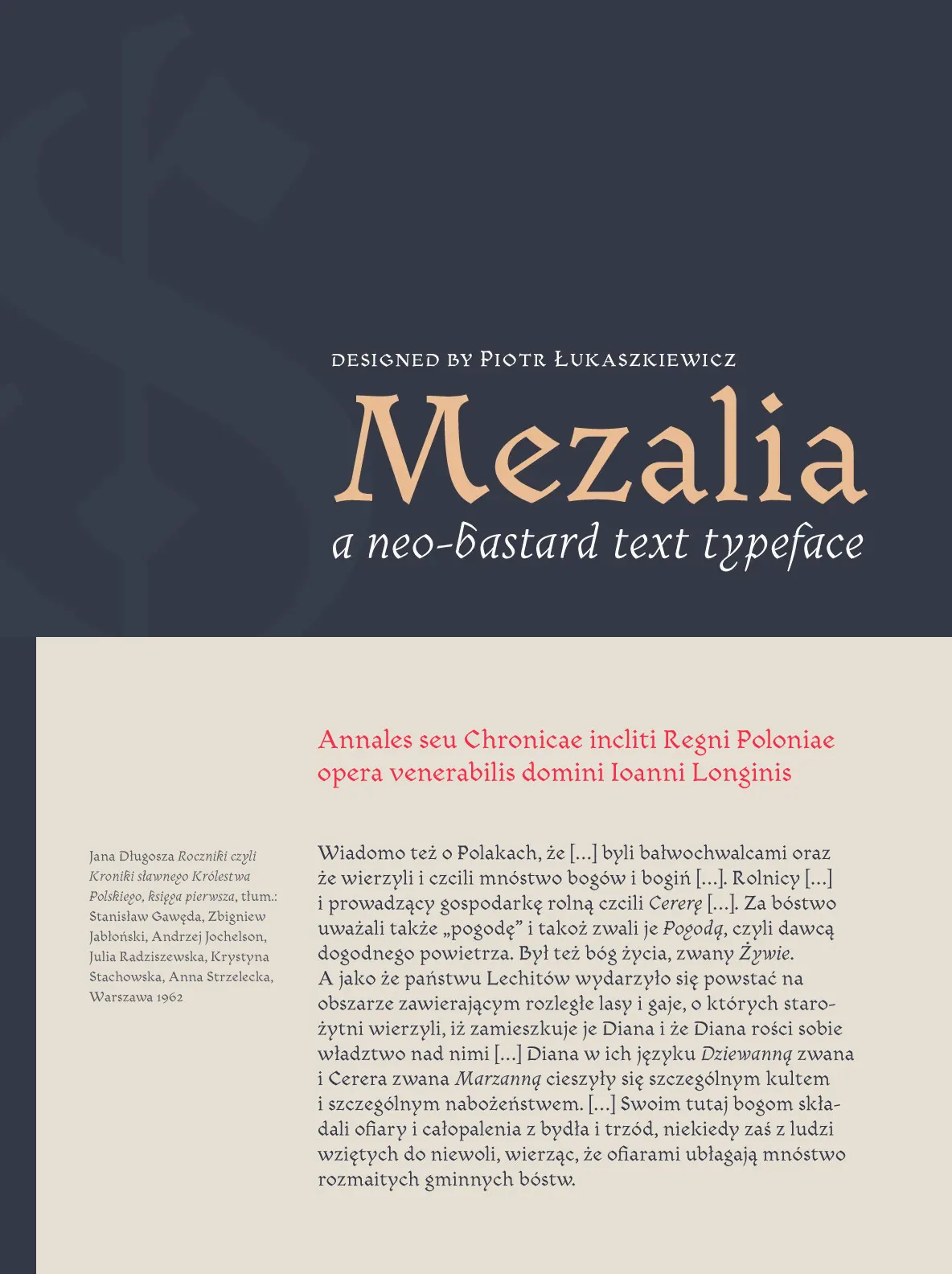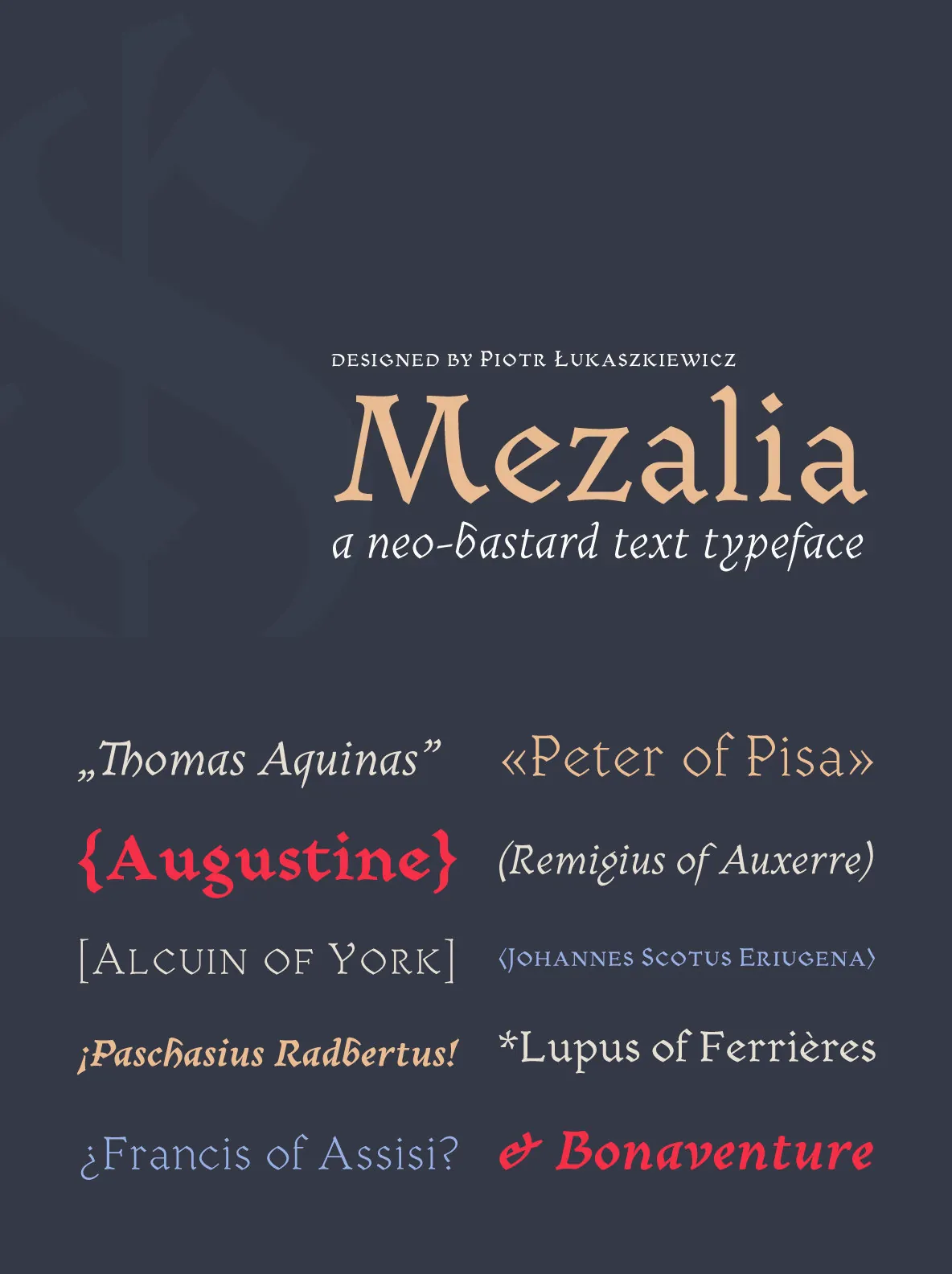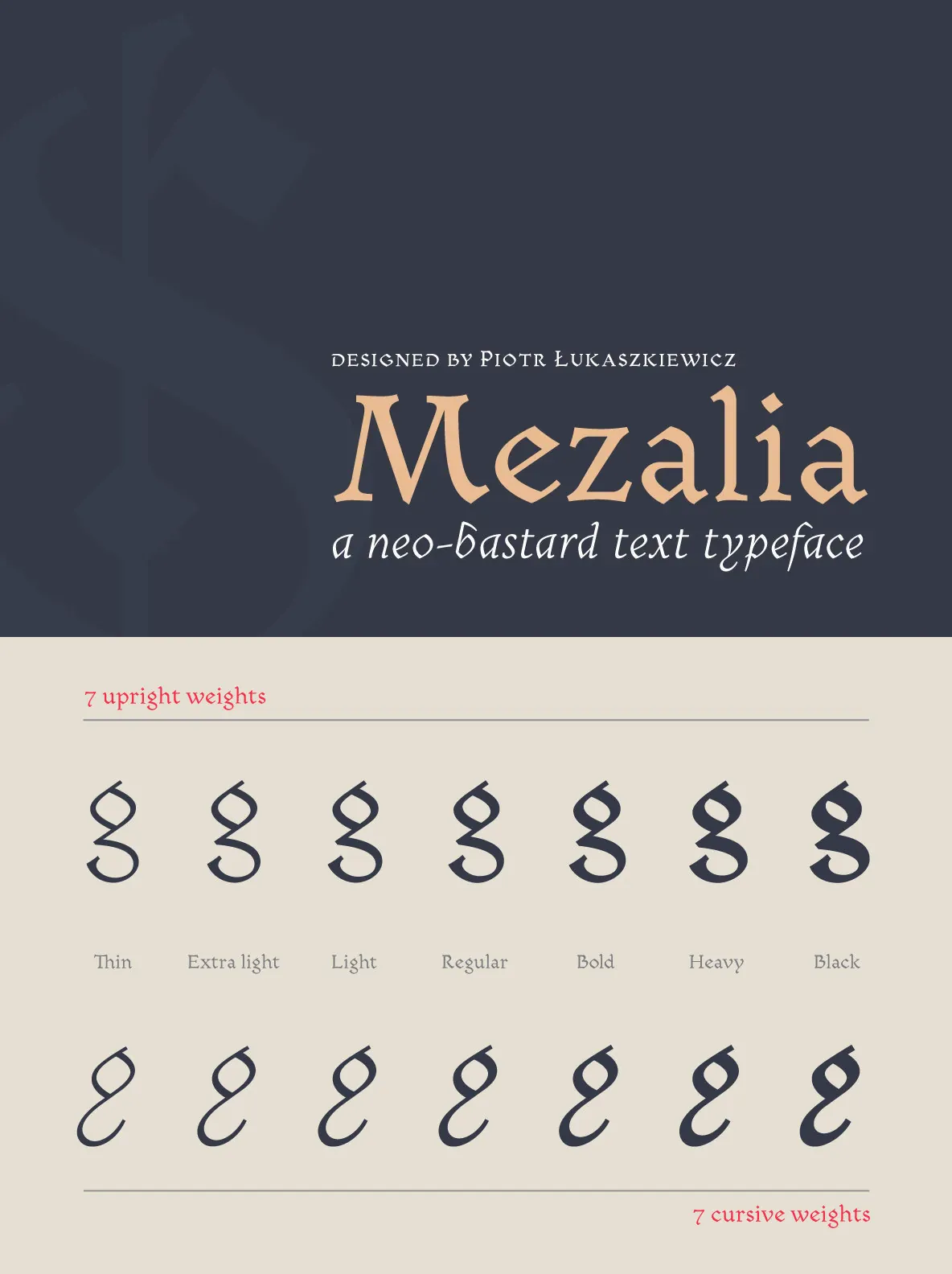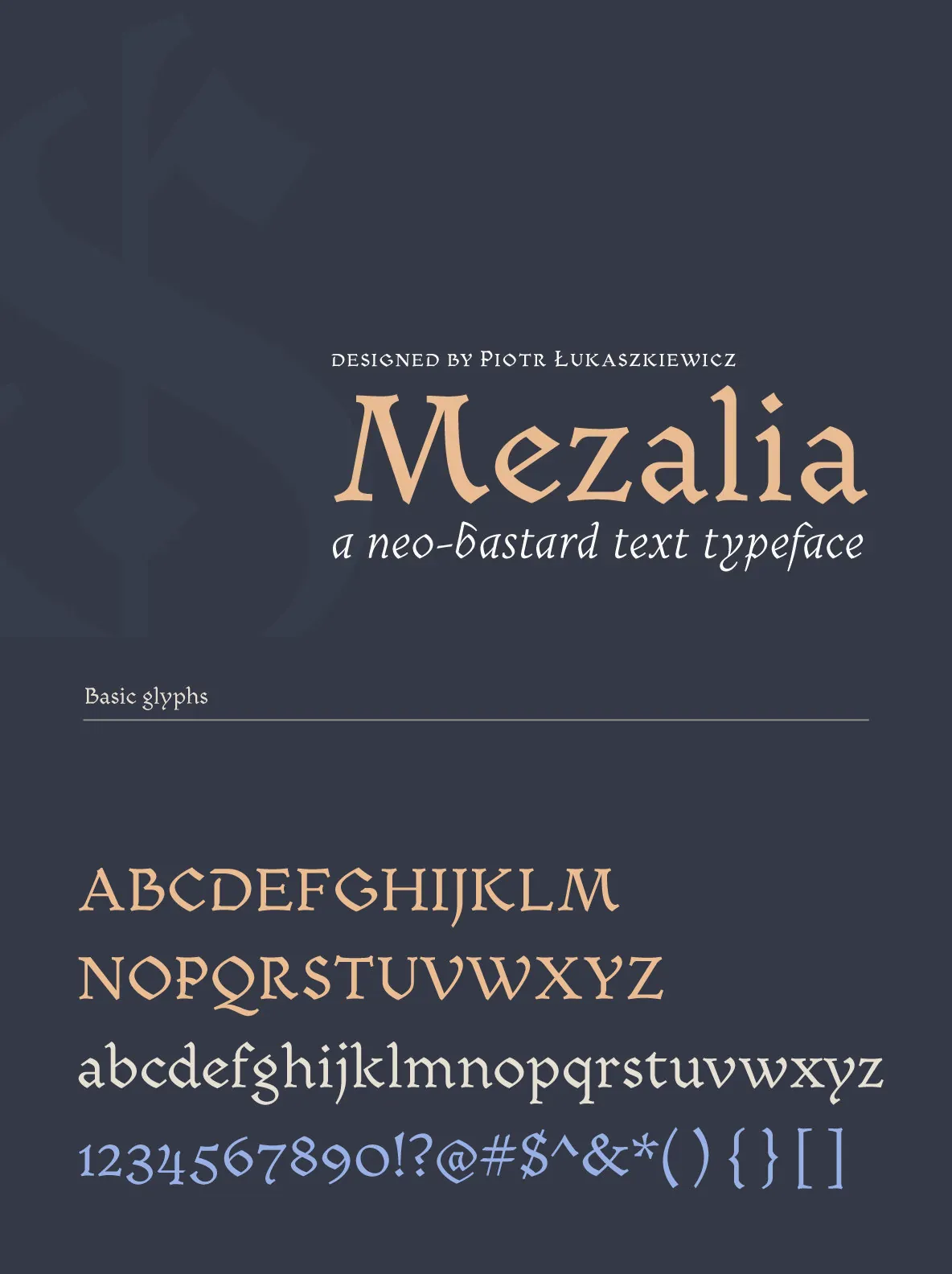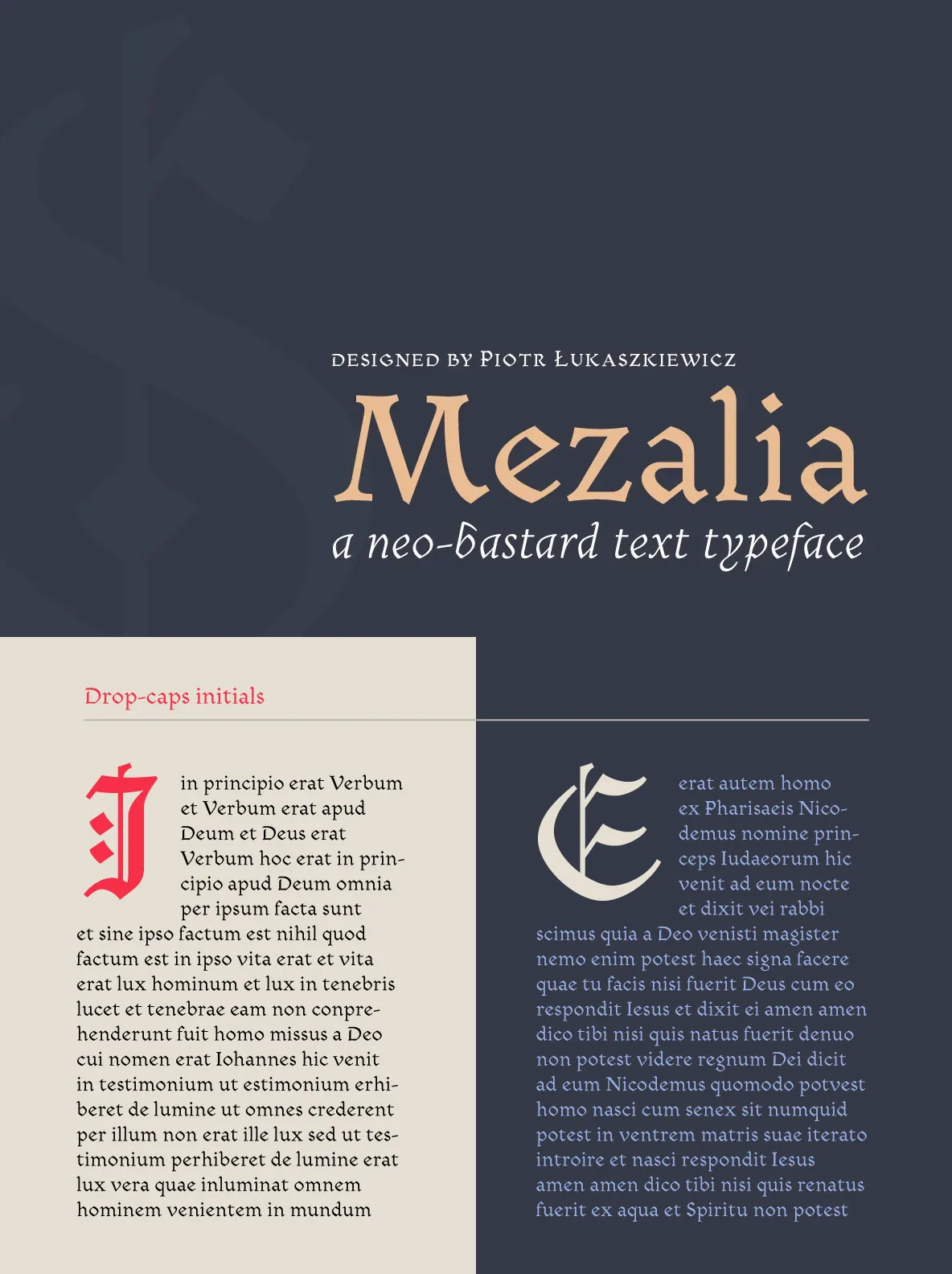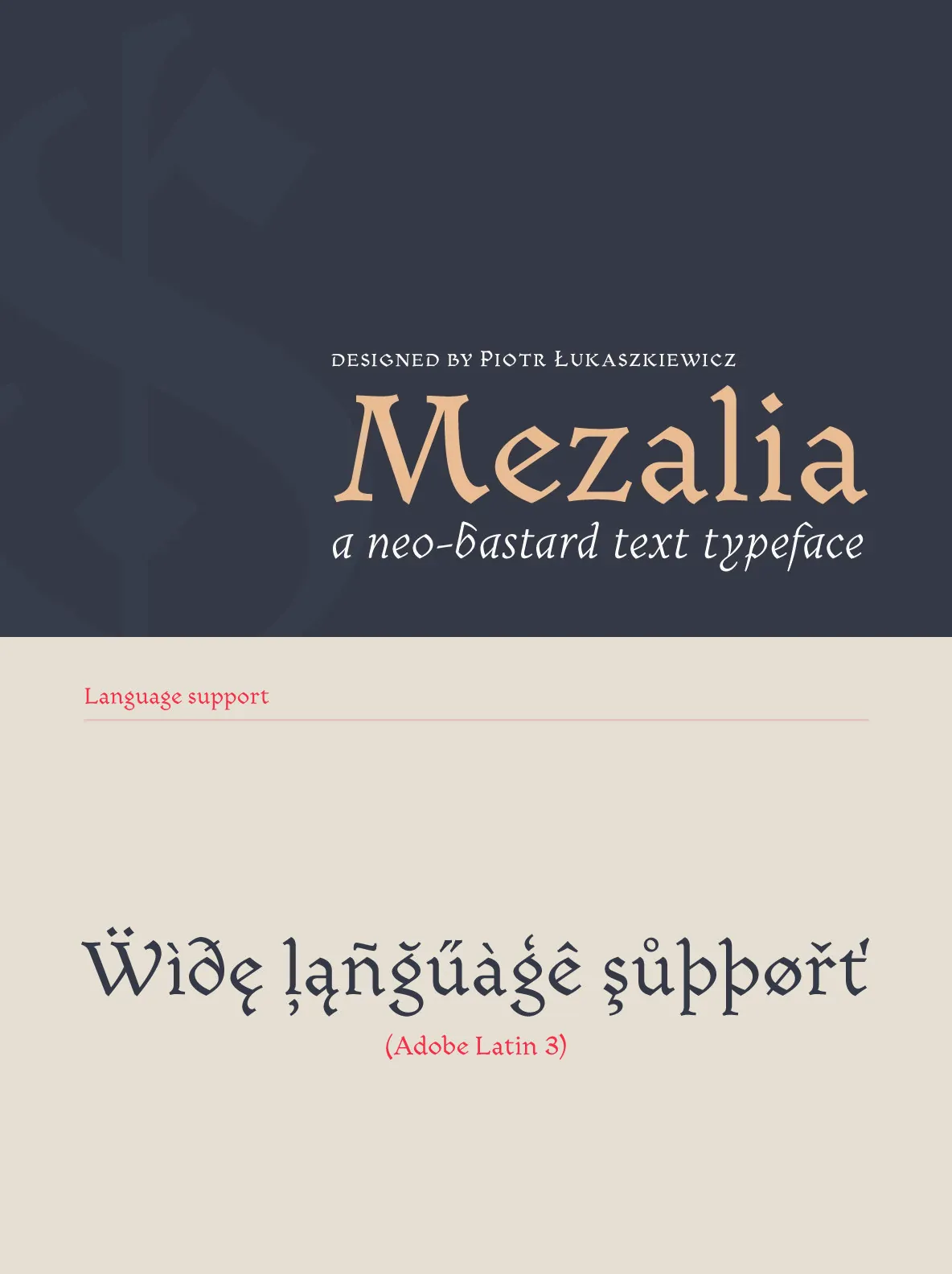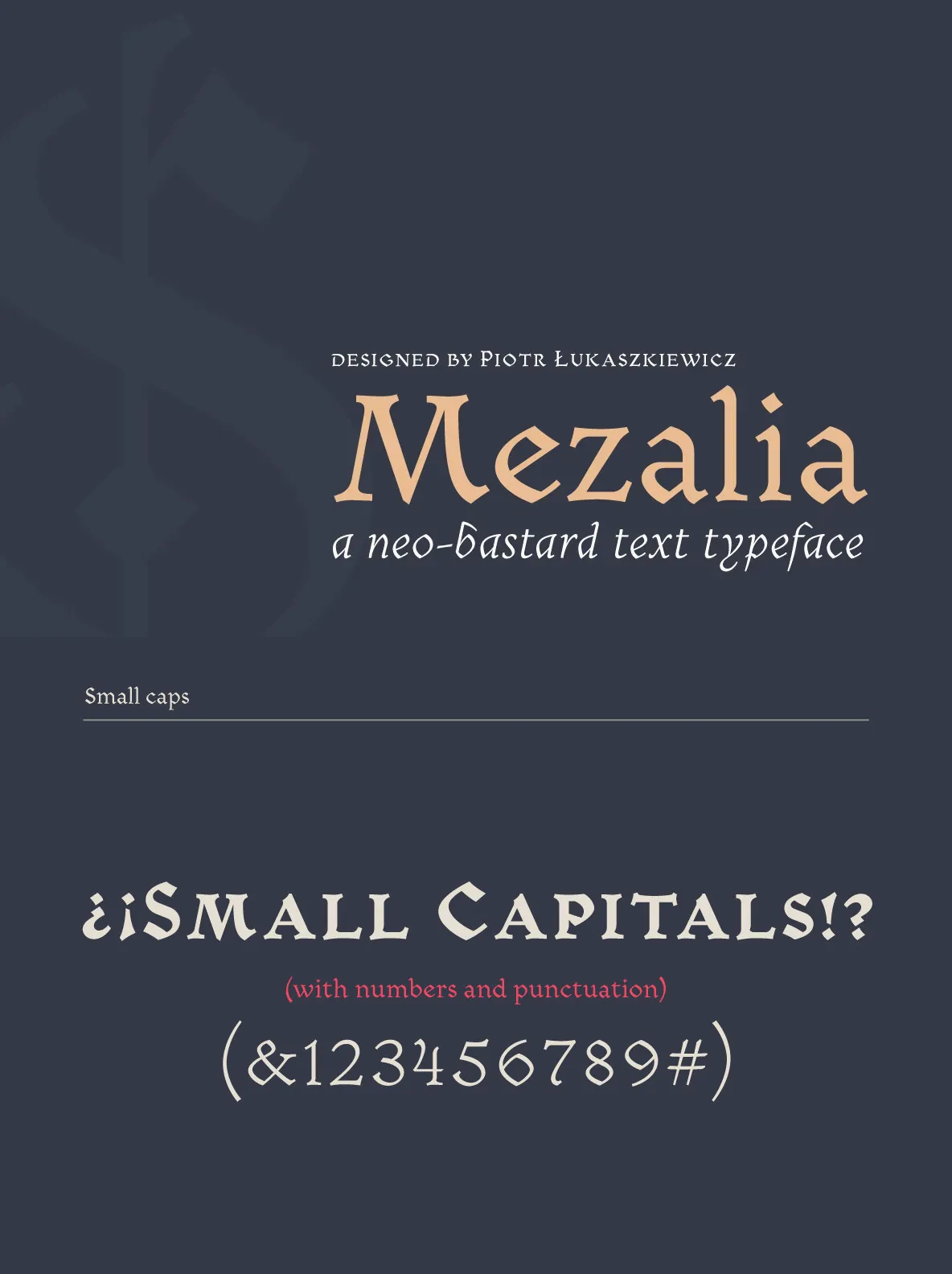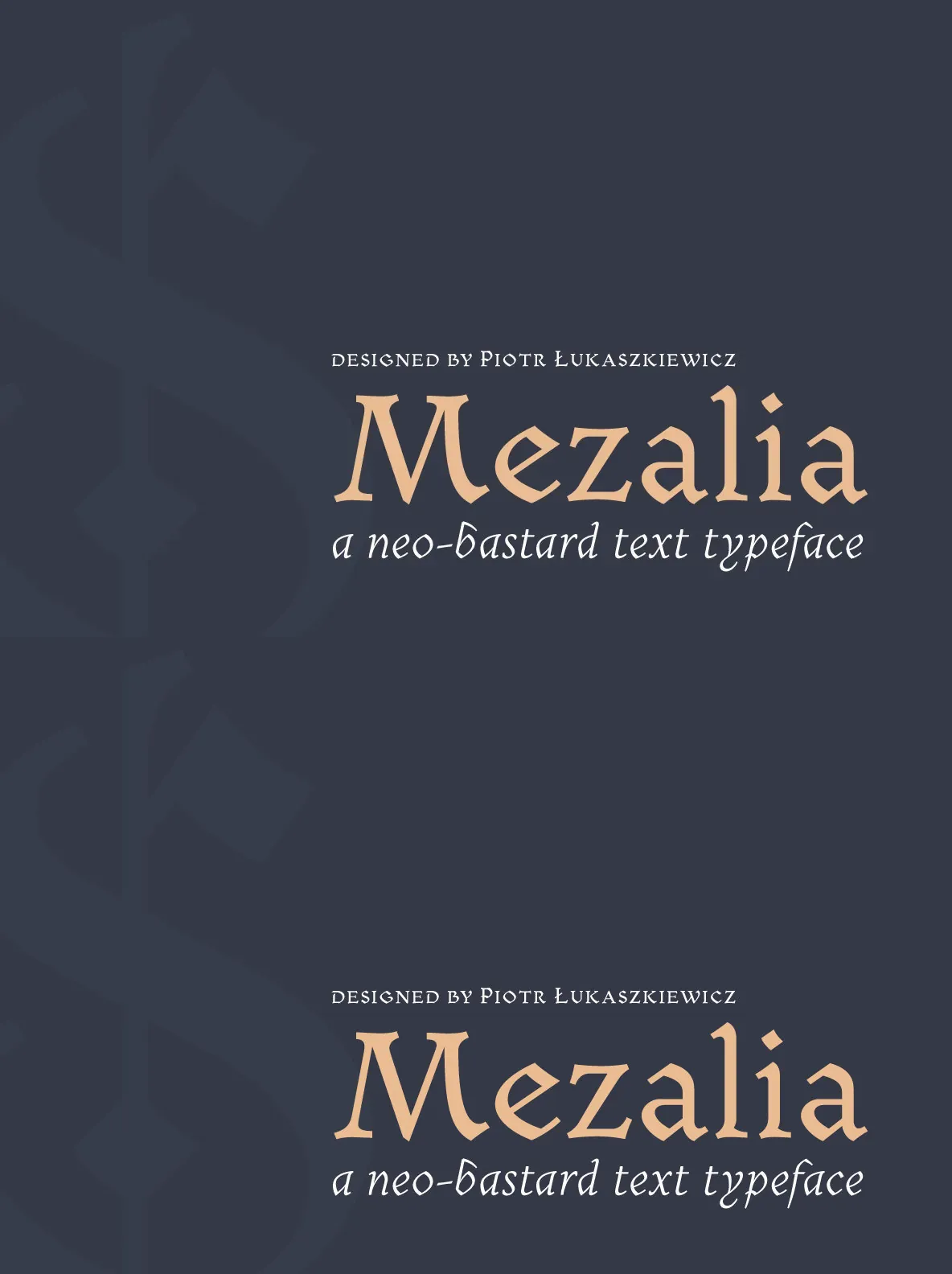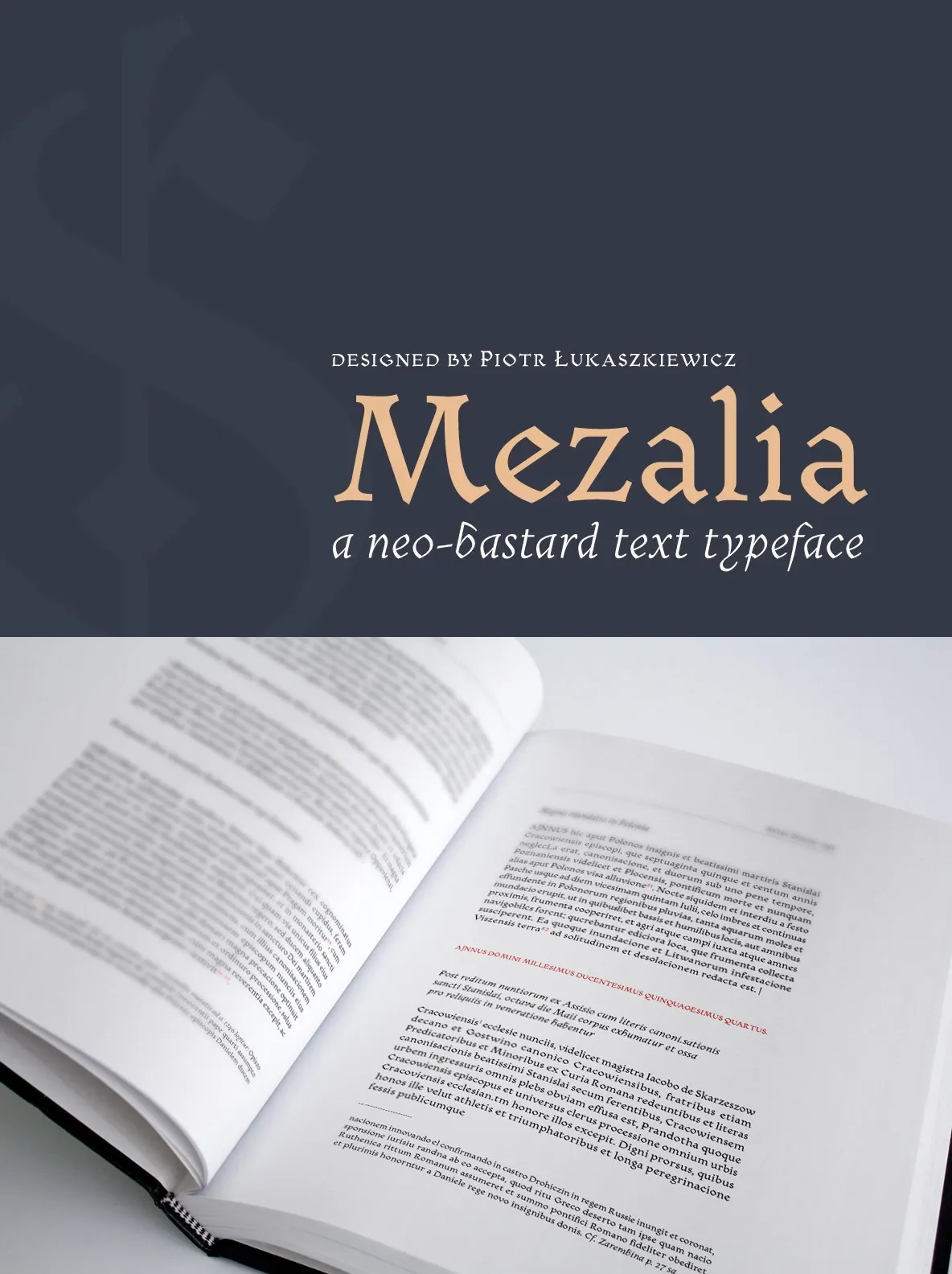
Mezalia is a one of a kind typeface. Its shapes were strongly influenced by bastarda scripts of high medieval times. But unlike most fonts sharing similar origin, Mezalia is not just another blackletter but a fully functional text typeface, blending medieval poise and character with modern sensibilities. Stroke widths, imitating a broad nibbed pen of a scribe, fluctuate constantly giving paragraphs a characteristic vibrating texture. Despite it’s strong character Mezalia is very legible and will be an excellent choice for a book or an elegant magazine.
Mezalia has two distinct styles: straight and cursive, which come in seven weights, from thin to black. Each weight contains a set of old-style figures, lining figures, small caps and ligatures. A separate style containing drop-cap initials is also available.